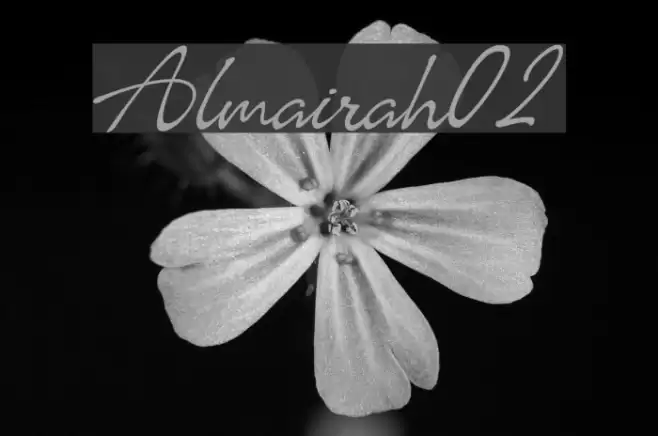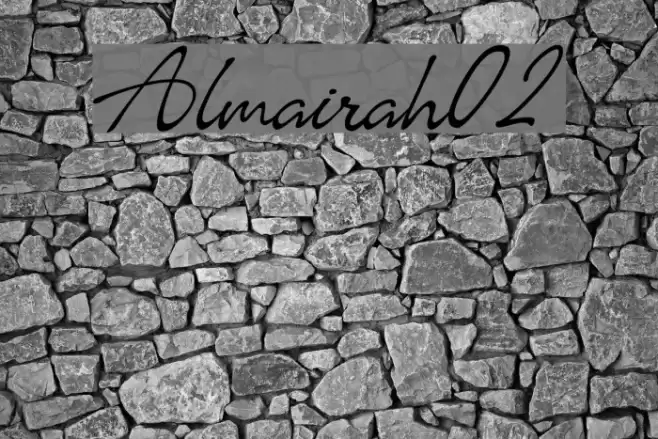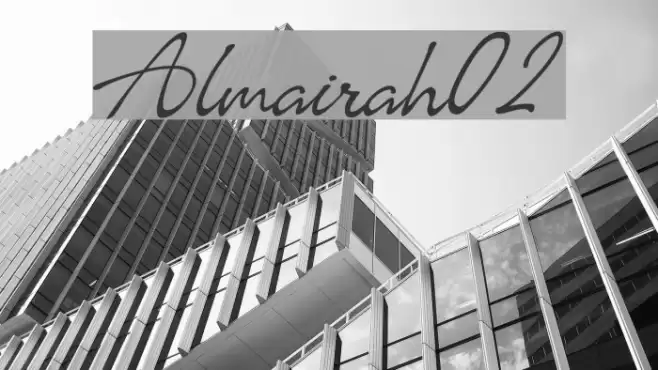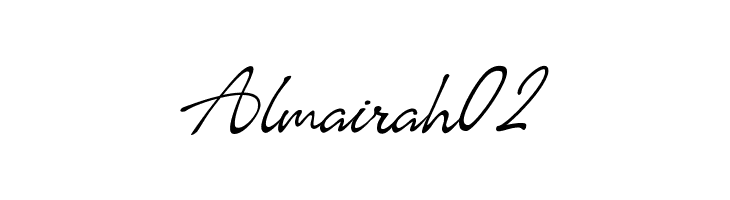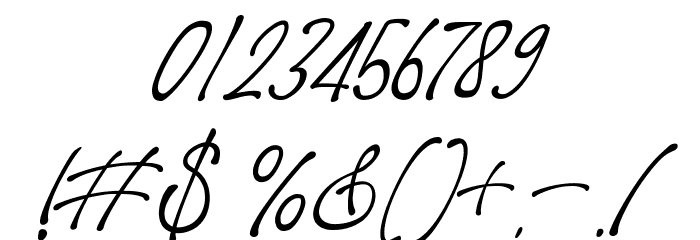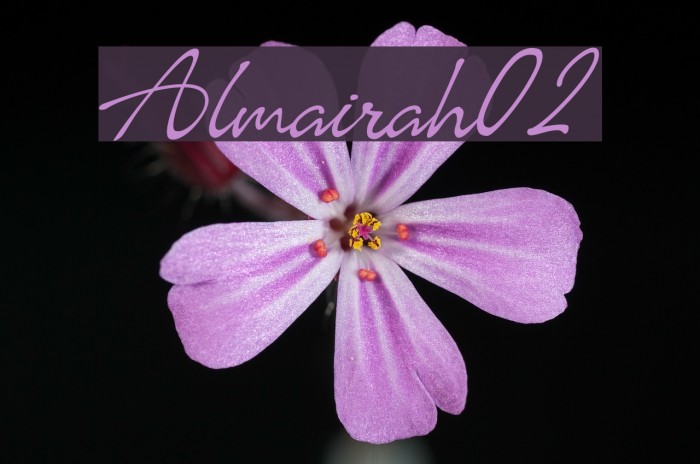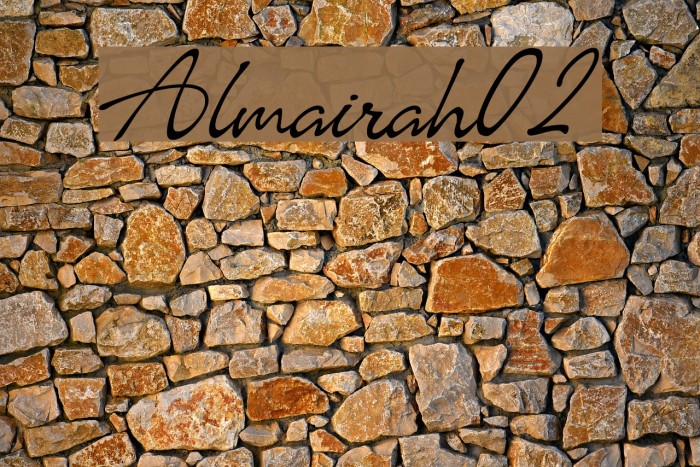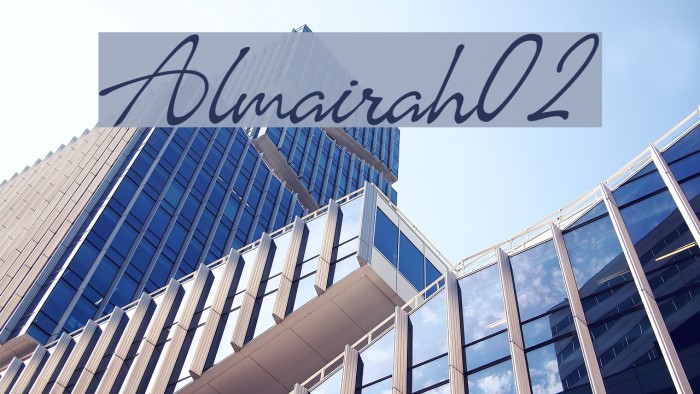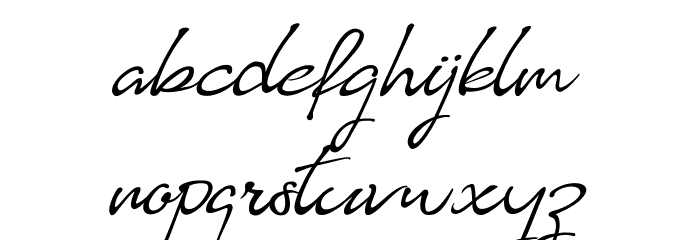
Almairah02 Font
Almairah02 Description
This font exudes a fluid and elegant script style, characterized by its smooth, flowing lines and cursive nature. The uppercase letters are distinct with a slight slant, giving a sense of movement and grace. The lowercase letters maintain a consistent flow, connecting seamlessly in a way that mimics natural handwriting. Numbers and special characters are crafted with the same attention to detail, ensuring uniformity across all elements. The overall appearance is sophisticated and artistic, making it ideal for projects that require a personal touch.
A fluid and elegant script font with a natural, cursive style from Uncategorized fonts.
- Proposed Projects: Ideal for wedding invitations, greeting cards, personal branding, and artistic projects that require a handwritten touch.
- Overall Style: Elegant, Artistic
- Use Case: Logos, Invitations, Personal Branding